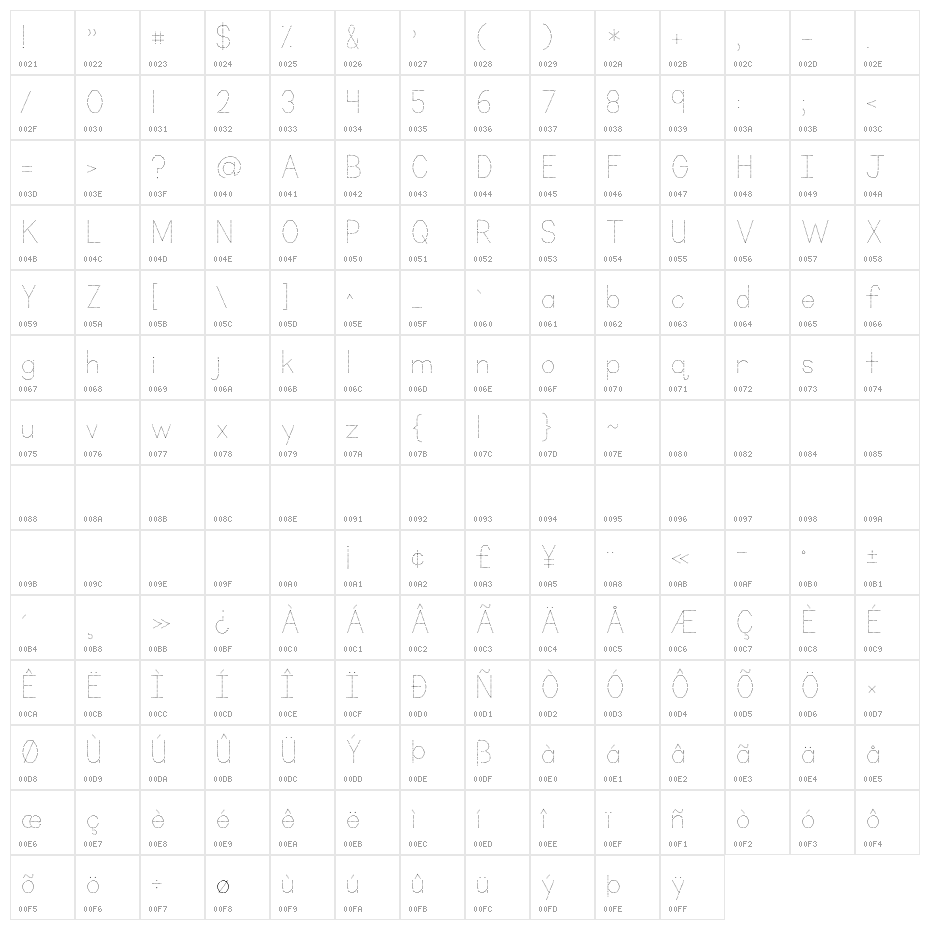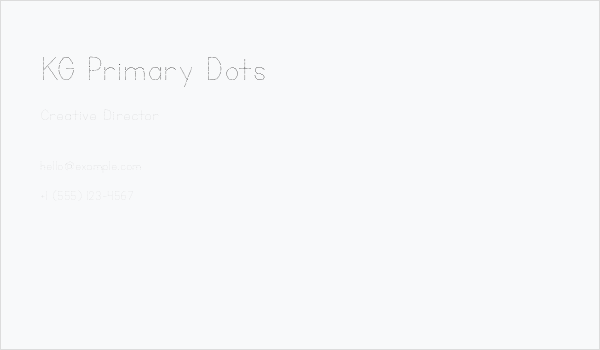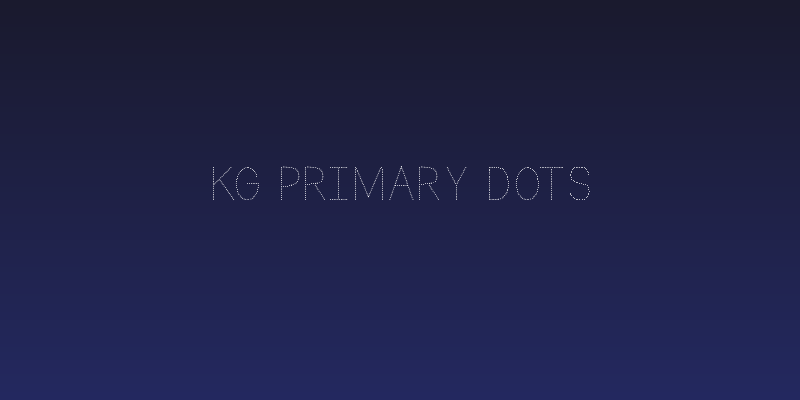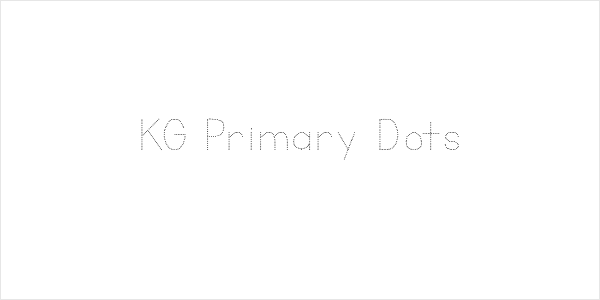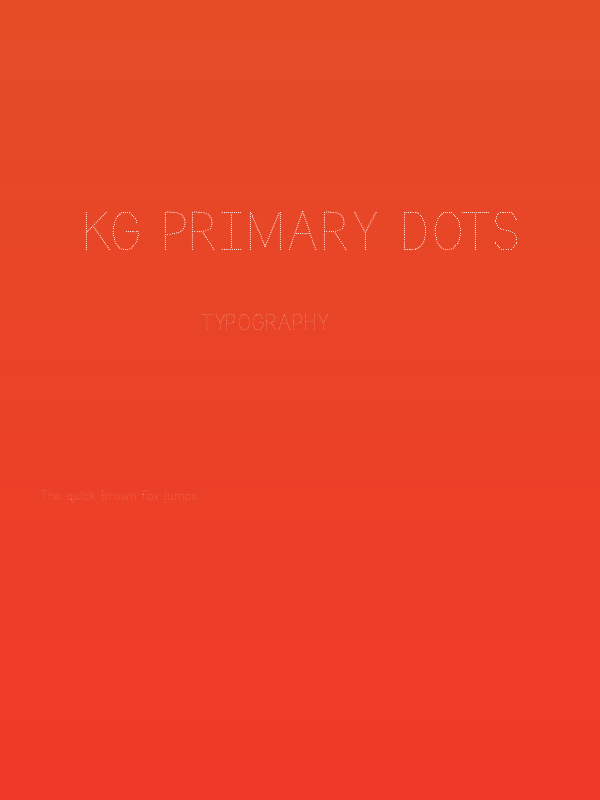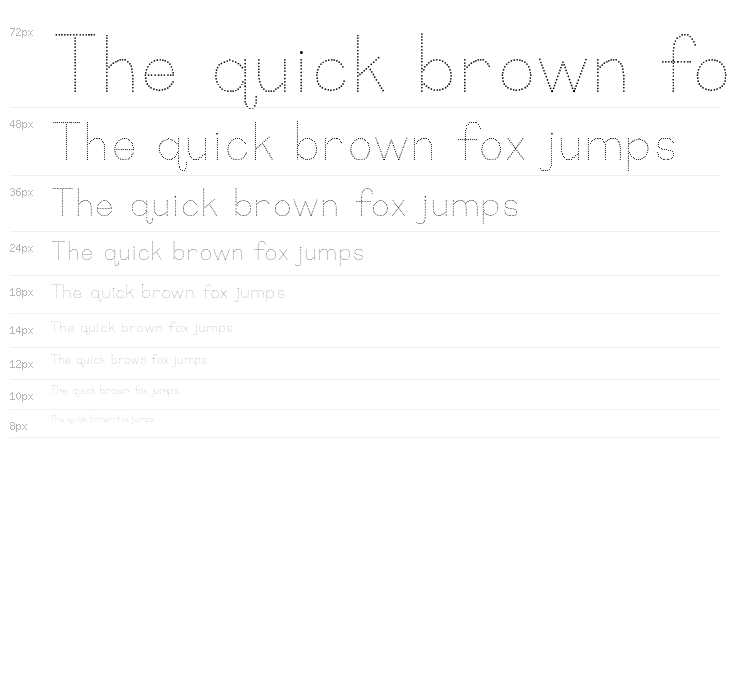
KG Primary Dots Font
KG Primary Dots Description
This font features a unique dotted style, where each character is composed of evenly spaced dots forming the outlines of letters and numbers. The design is clean and minimalistic, providing a playful yet structured appearance. It maintains a consistent size and spacing across all characters, ensuring readability while adding a distinctive visual appeal. The font includes both uppercase and lowercase letters, numerals, and a variety of special characters, making it versatile for different uses. Its dotted pattern gives it a light and airy feel, suitable for educational or creative projects.
| Overall Style | Playful, Minimalistic |
| Use Case | Headlines, Educational materials, Creative designs |
| Proposed Projects | Ideal for educational materials, children's books, playful branding, and creative design projects. |